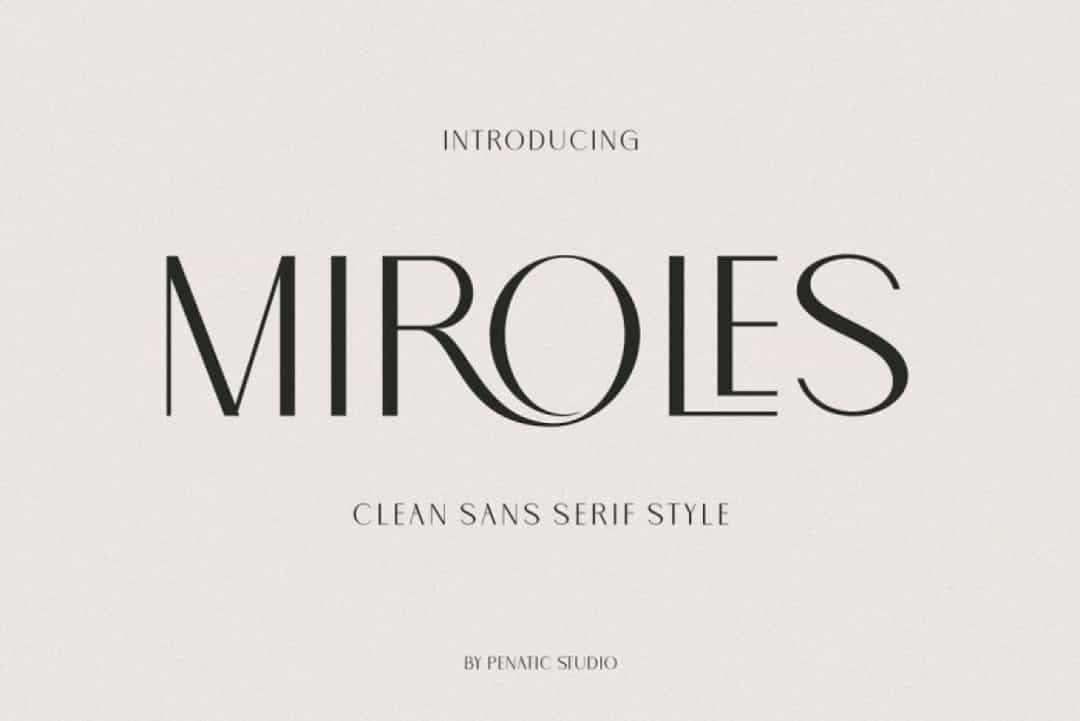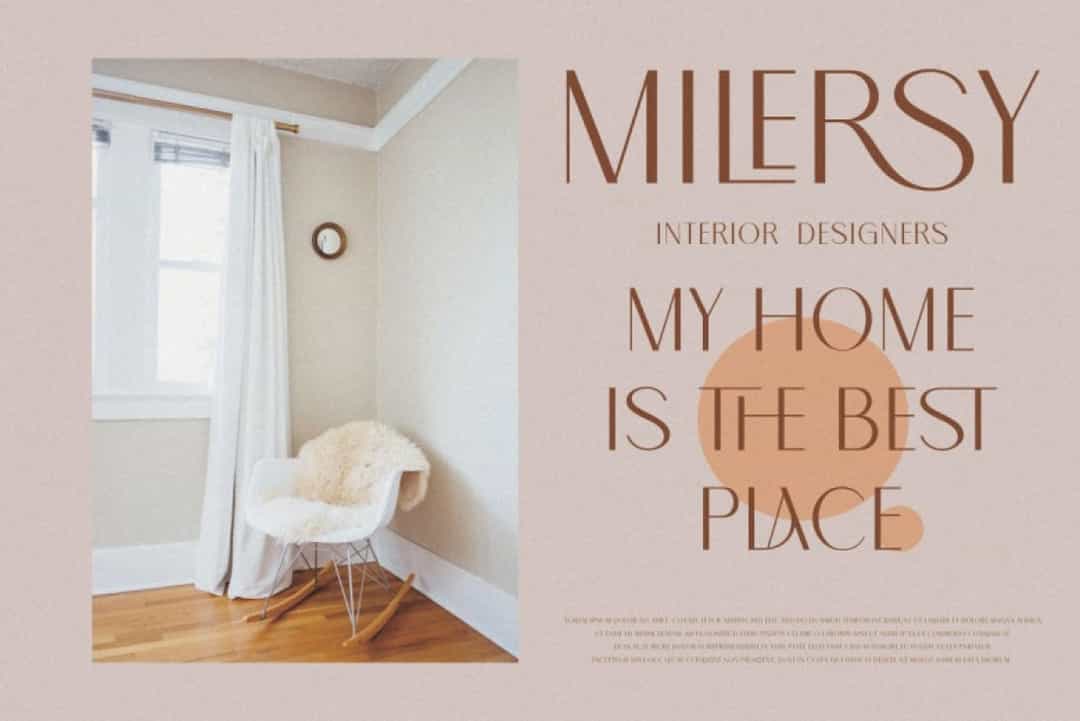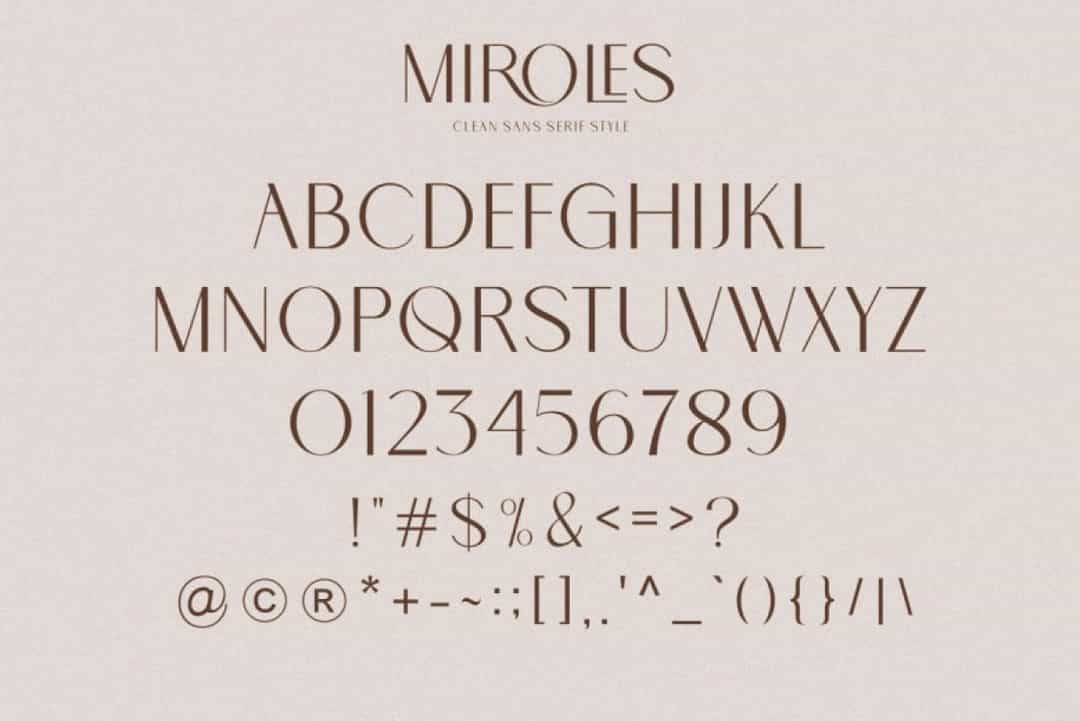
Discover Miroles Font, part of the Sans Serif collection—a versatile and unique font perfect for adding a personal touch to your projects. Download it for free and enjoy crafting designs with style, from invitations to social media posts. This font is available exclusively for personal use, giving you the freedom to create without limits. Unlock your creativity with Miroles Font today!
MIROLES San Serif Font is an exquisite San Serif font with lots of ligatures and letters for added effects in your work, designed for stringing projects. Easy to use and suitable for every application you may have in stringing projects.